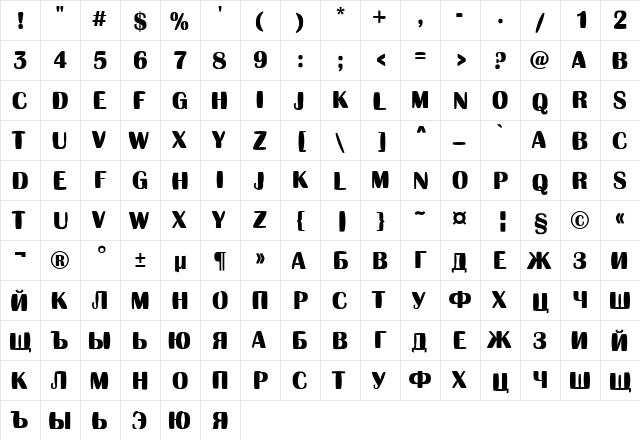
a_AlbionicTitulInfl Bold
Design Context for a_AlbionicTitulInfl Typeface
a_AlbionicTitulInfl takes a measured approach to typography — its balanced proportions and neutral character make it a reliable workhorse for both digital and print work. Its bold stroke weight gives it real presence on the page.